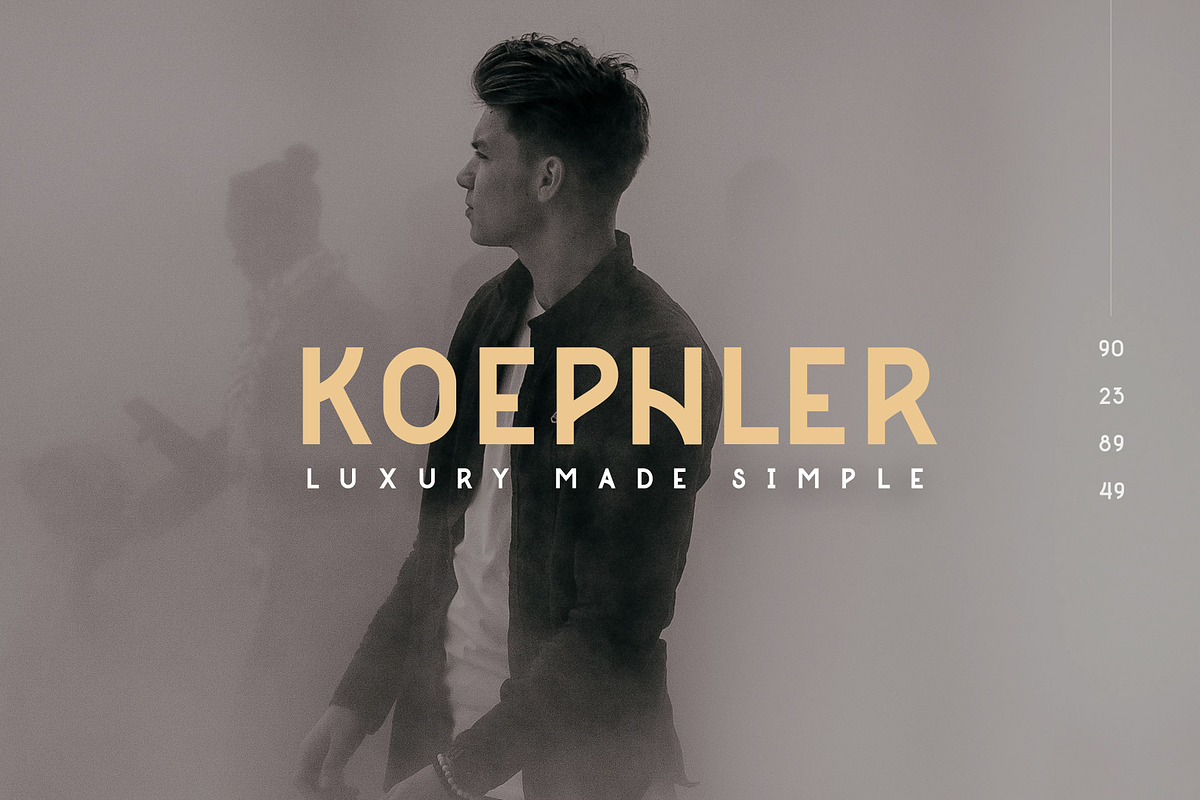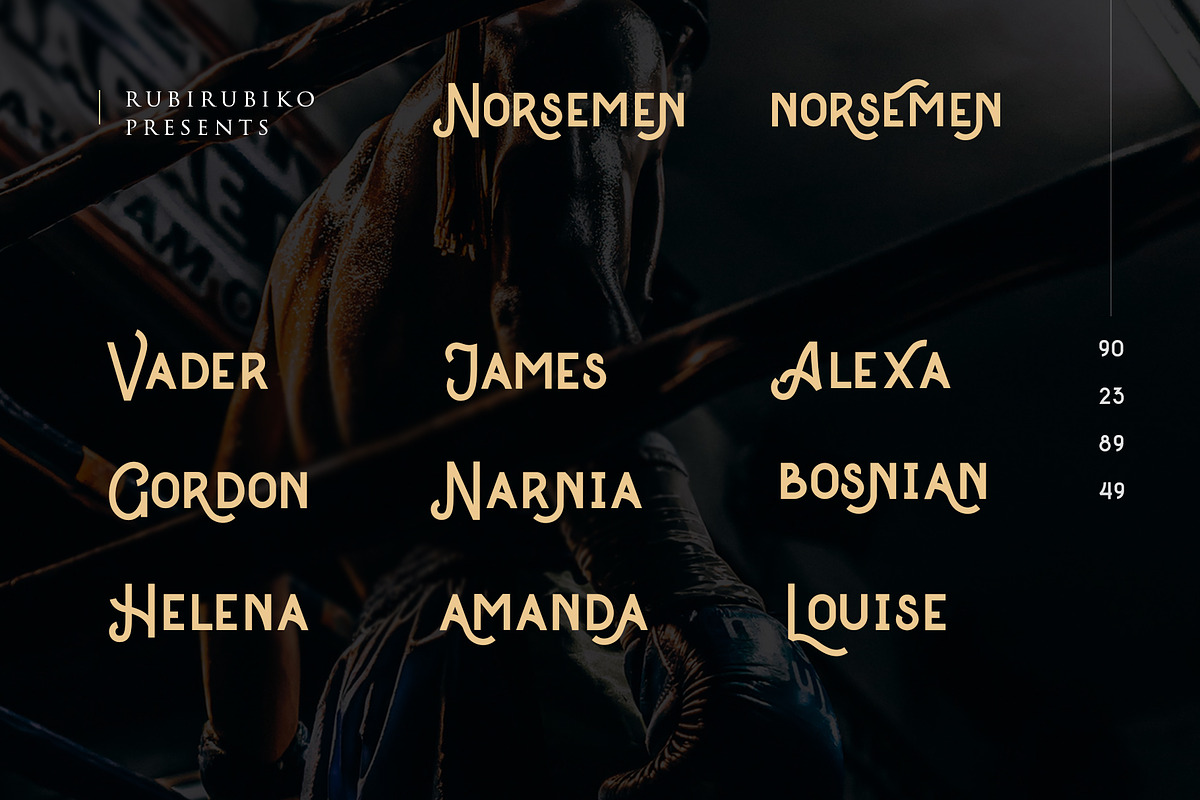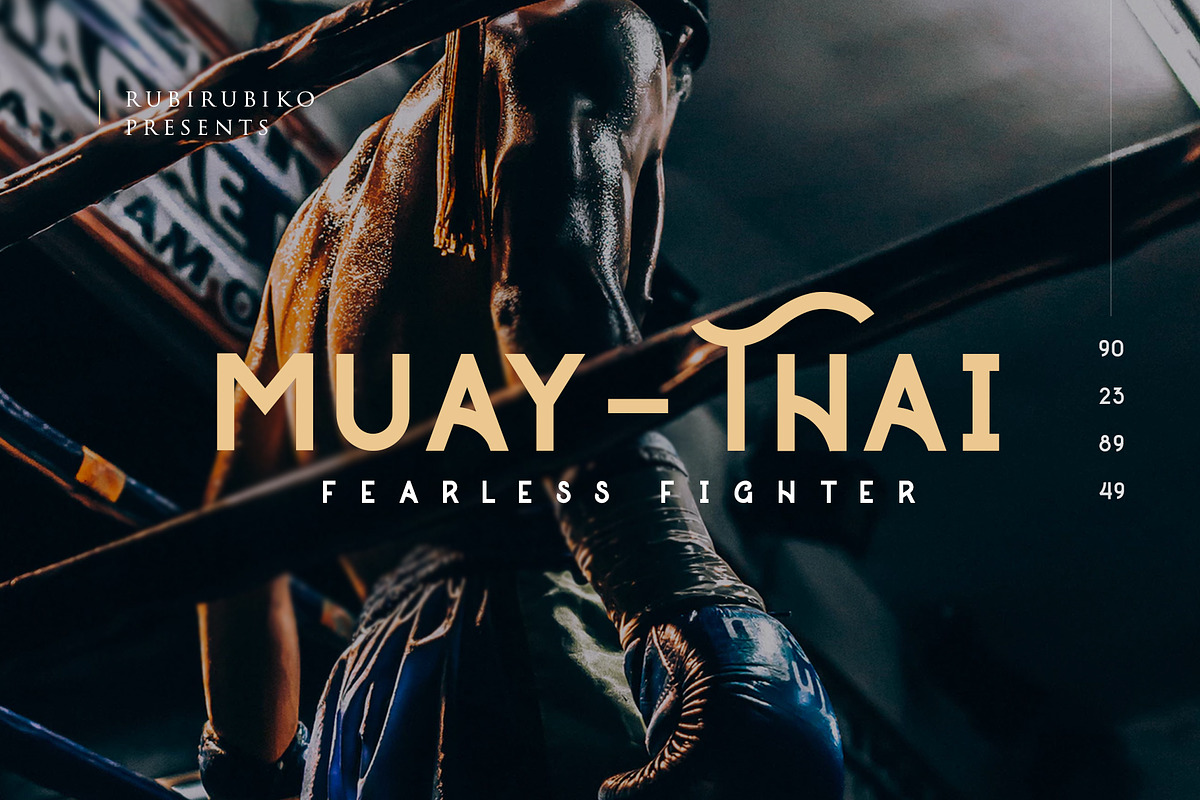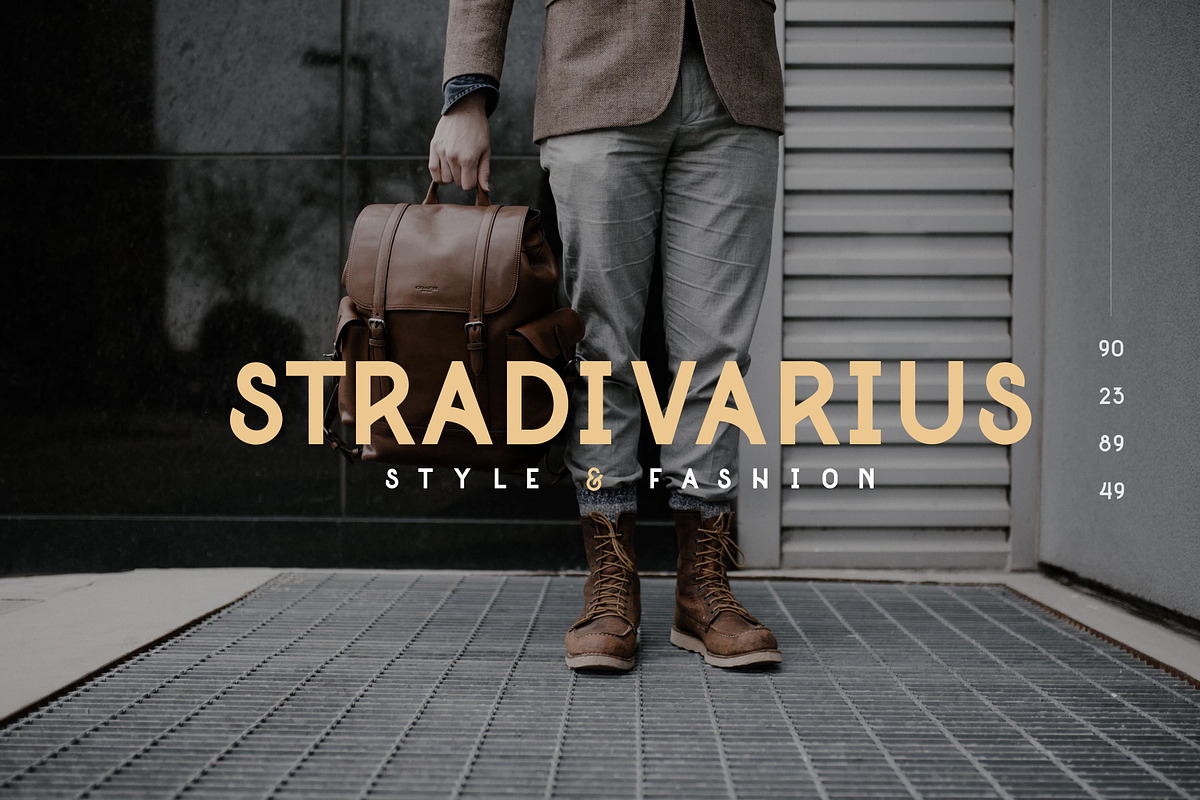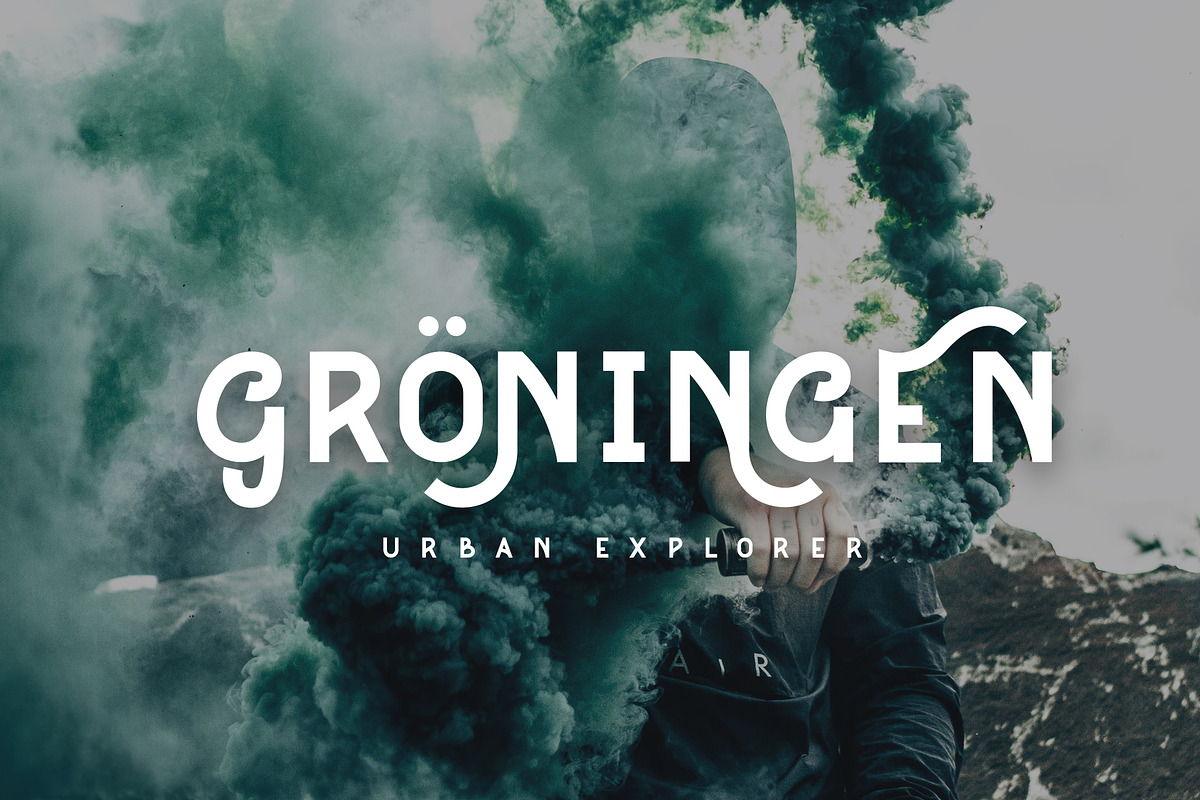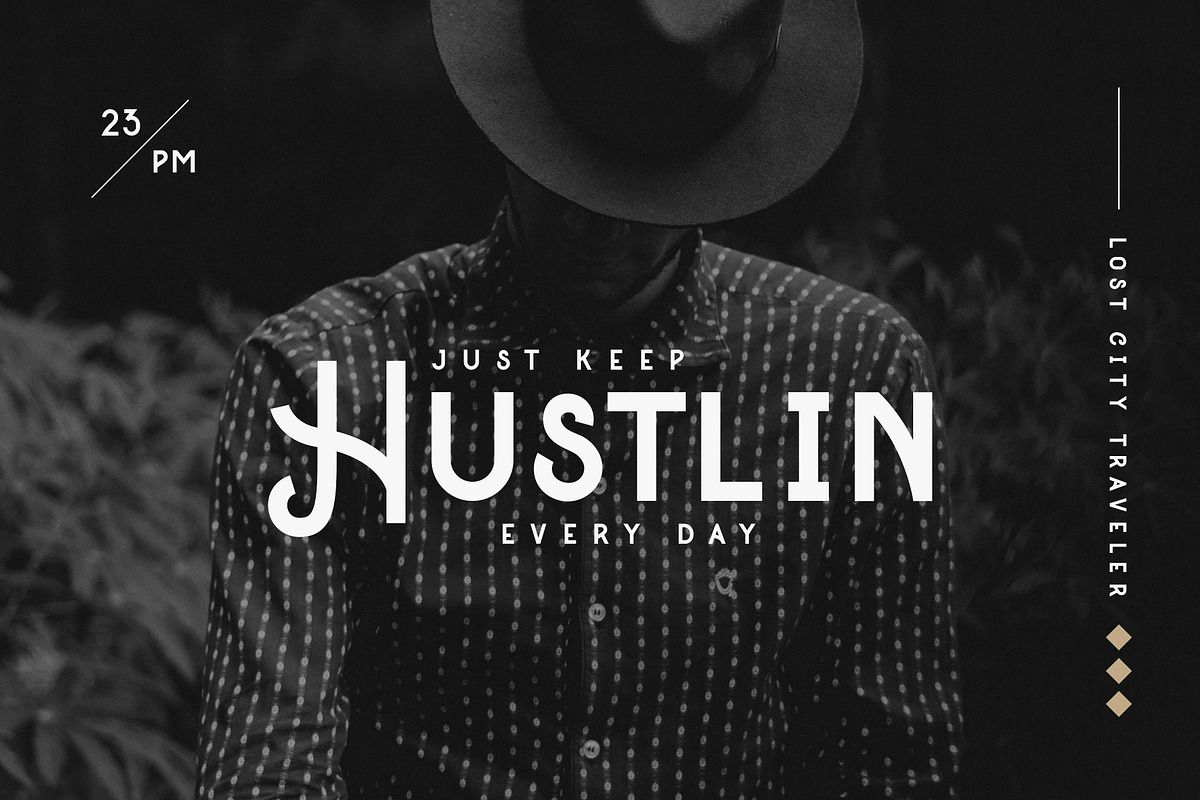
Norsemen - Handmade Font
Create a Extraordinary Typography / lettering results by using Norsemen - Handmade Font. Best match for logos, header, Titles, Prints & other Creative process possibilities.
- Ton of glyphs included
- Good pair with other font
- Clean Results